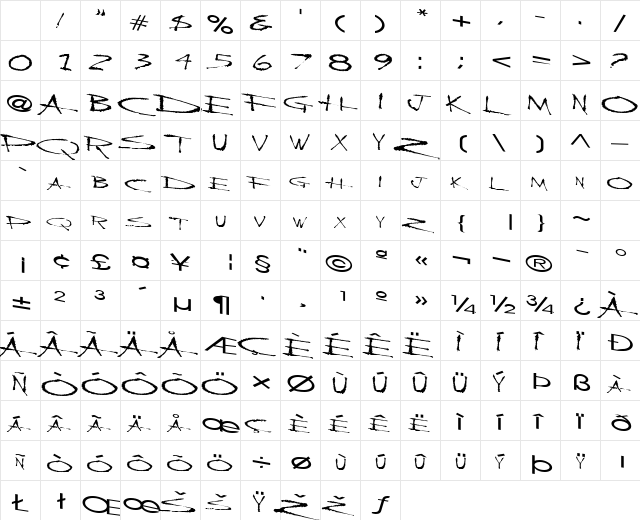
Complete BackScratcher Regular glyph index. Displaying only characters natively supported by BackScratcher Regular font.
BackScratcher is a composed and adaptable typeface that performs quietly and consistently across a wide range of design contexts.